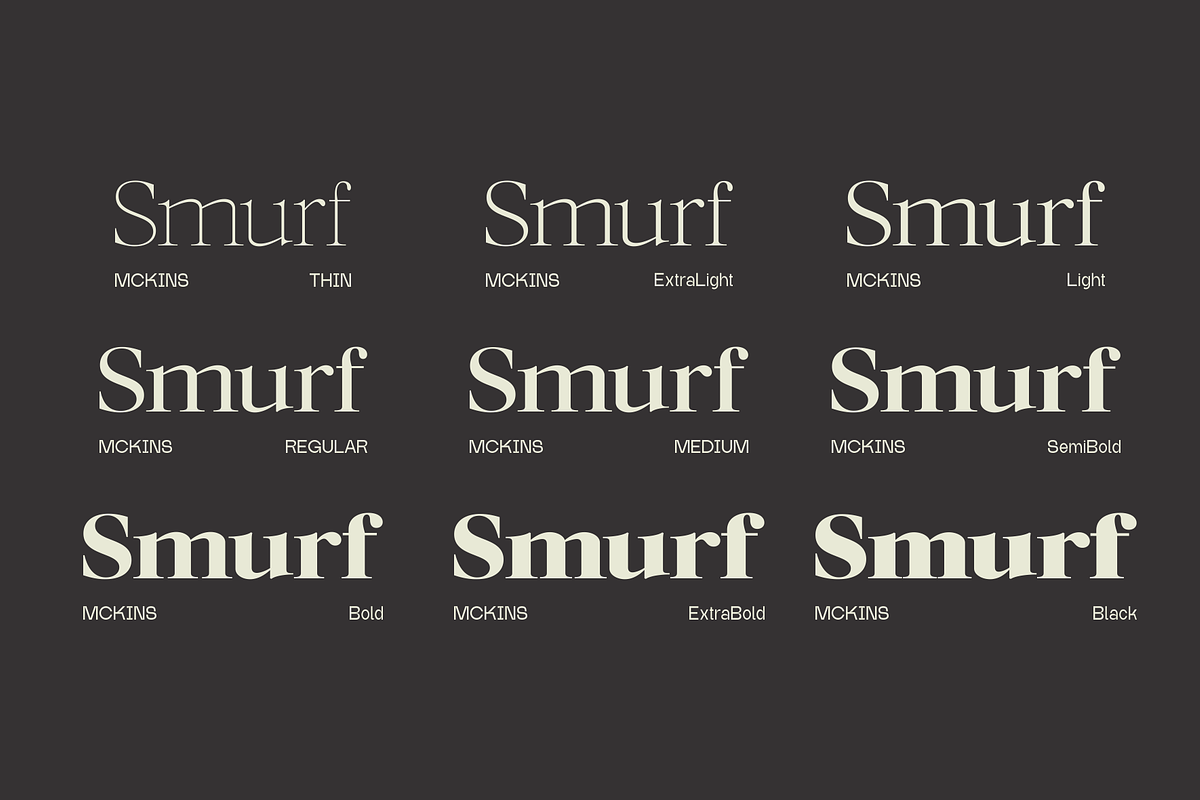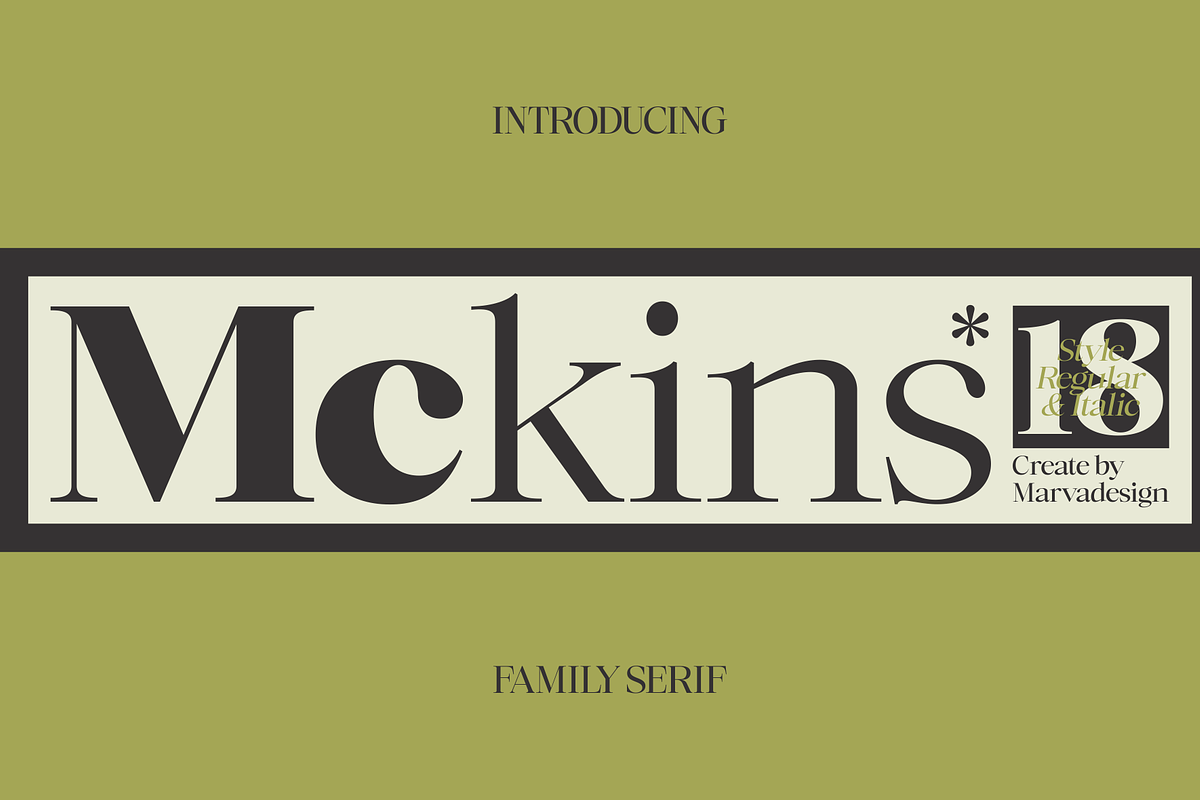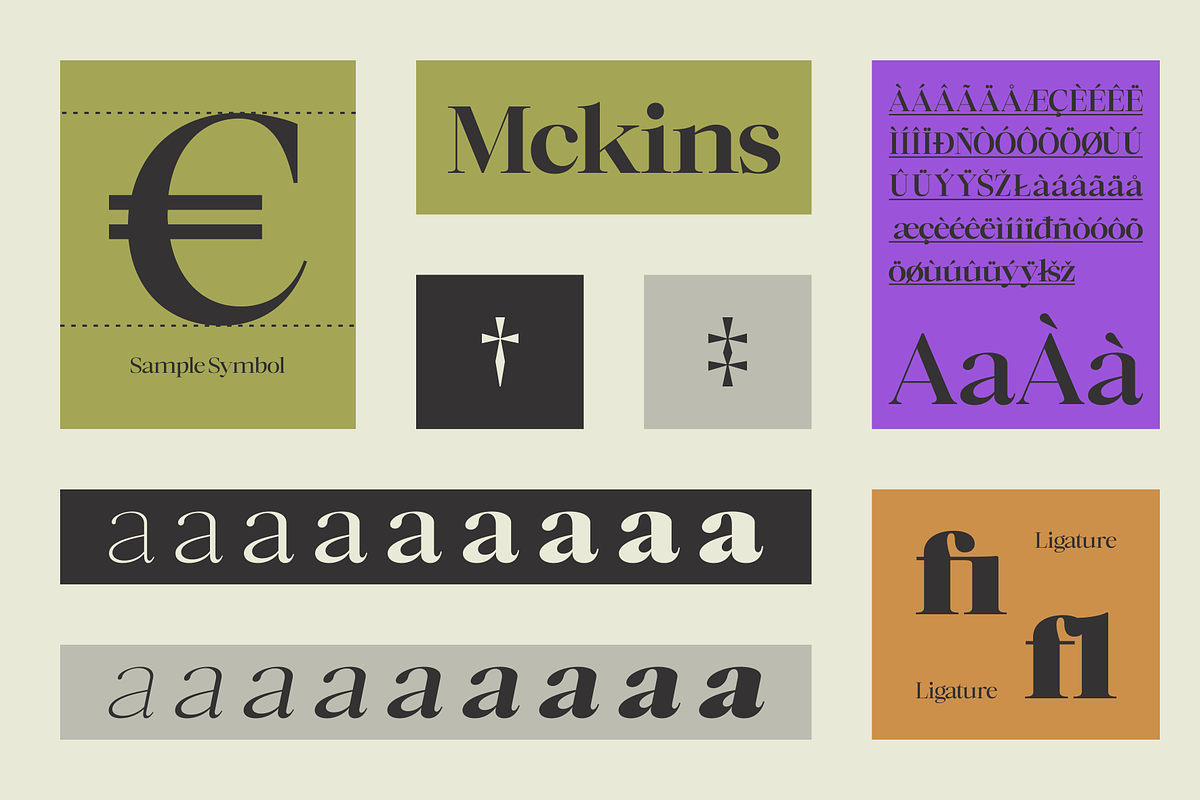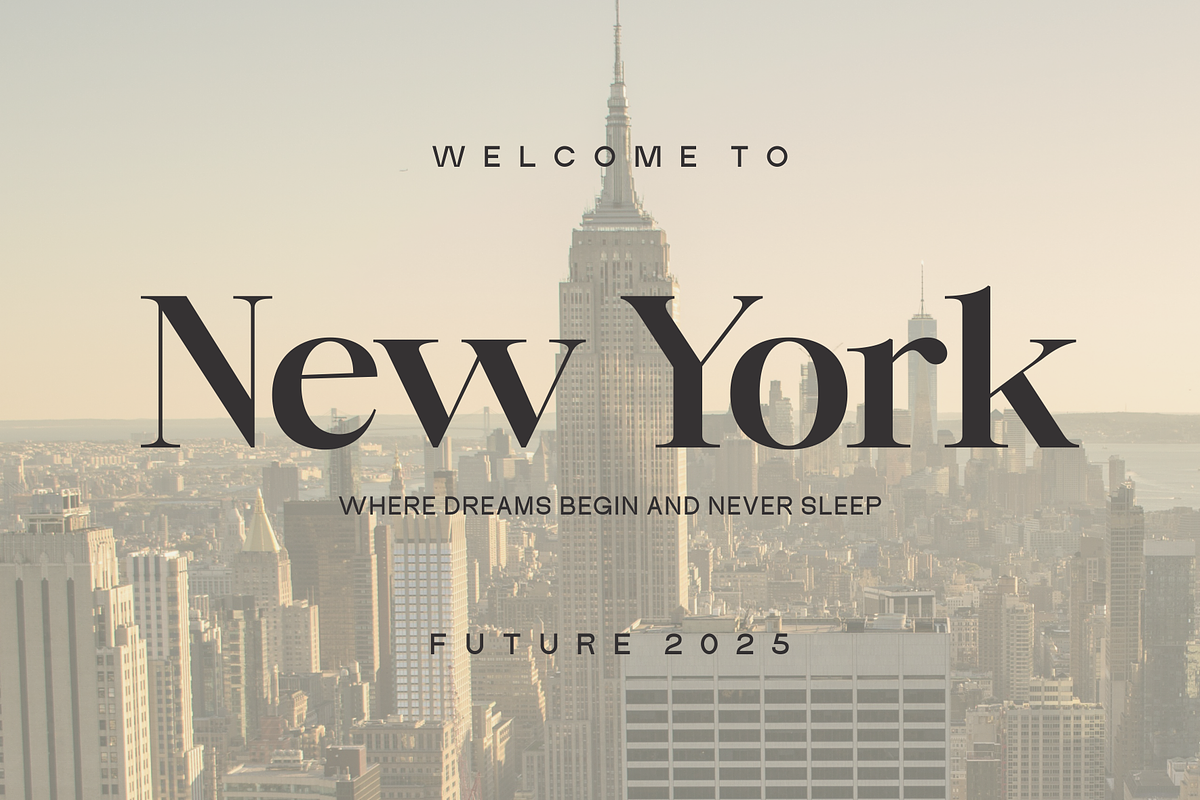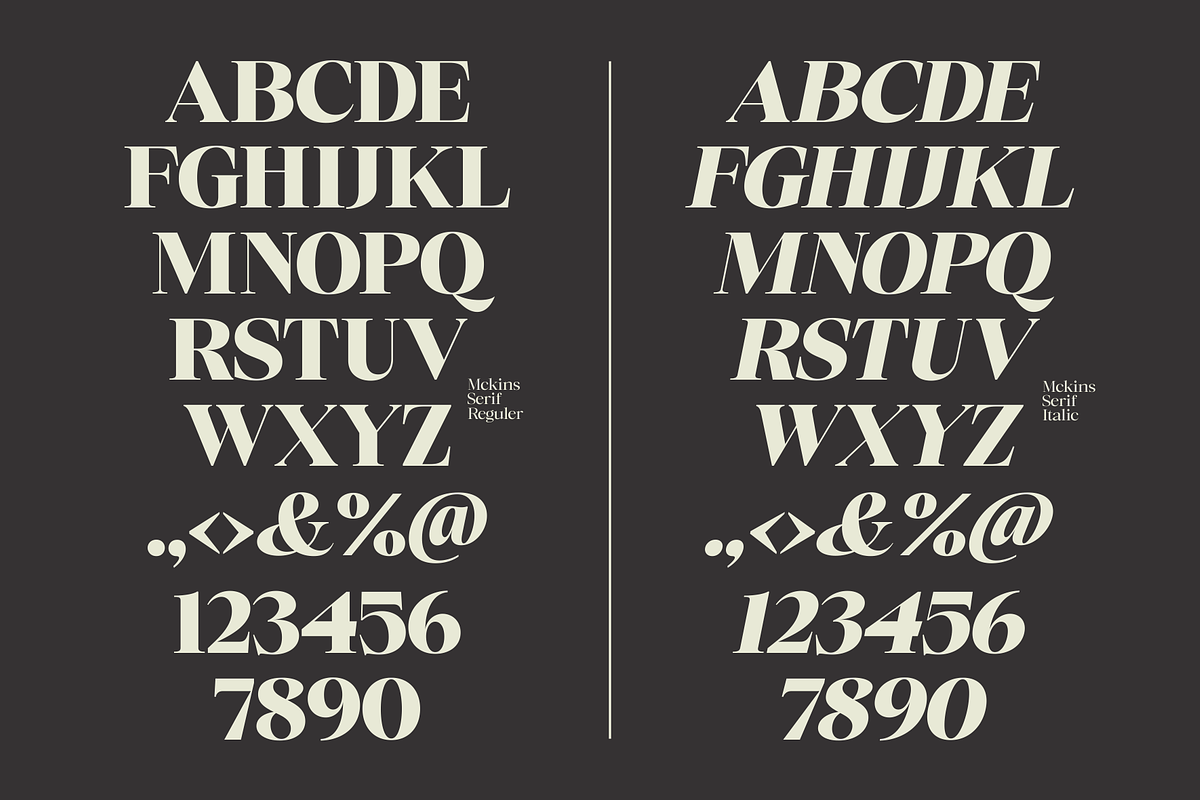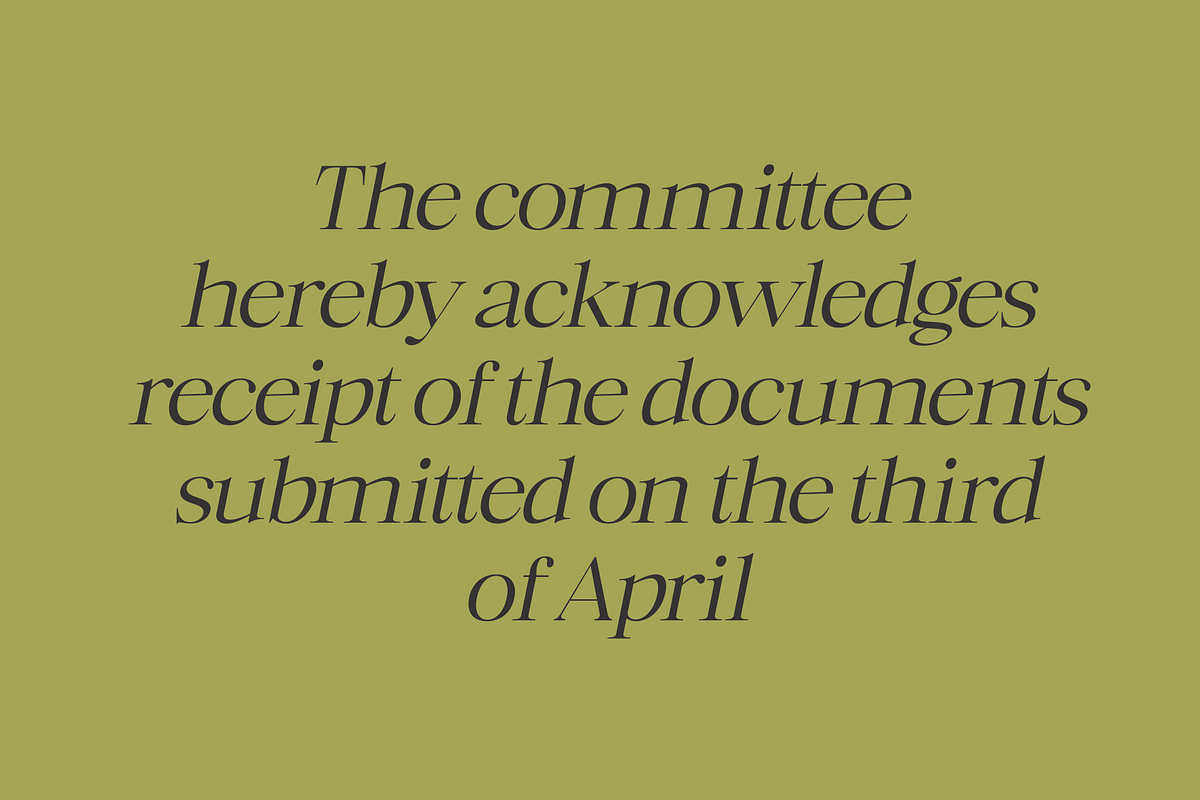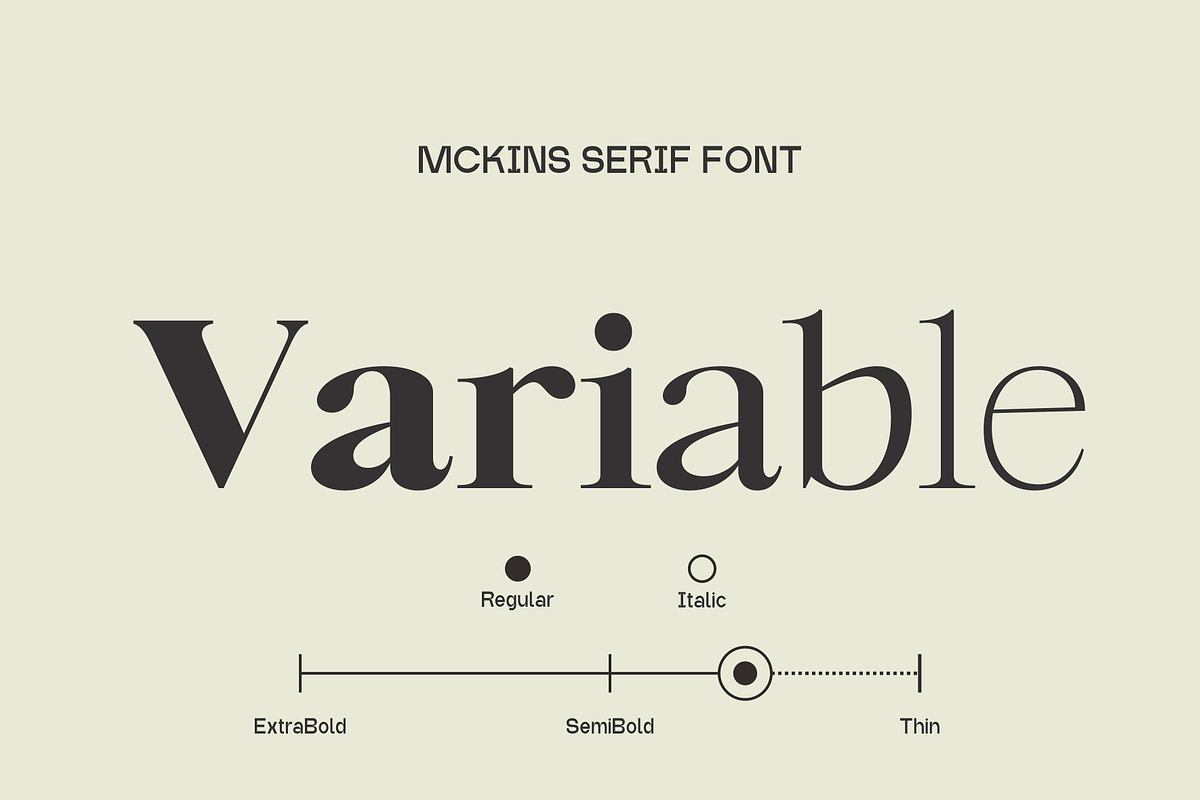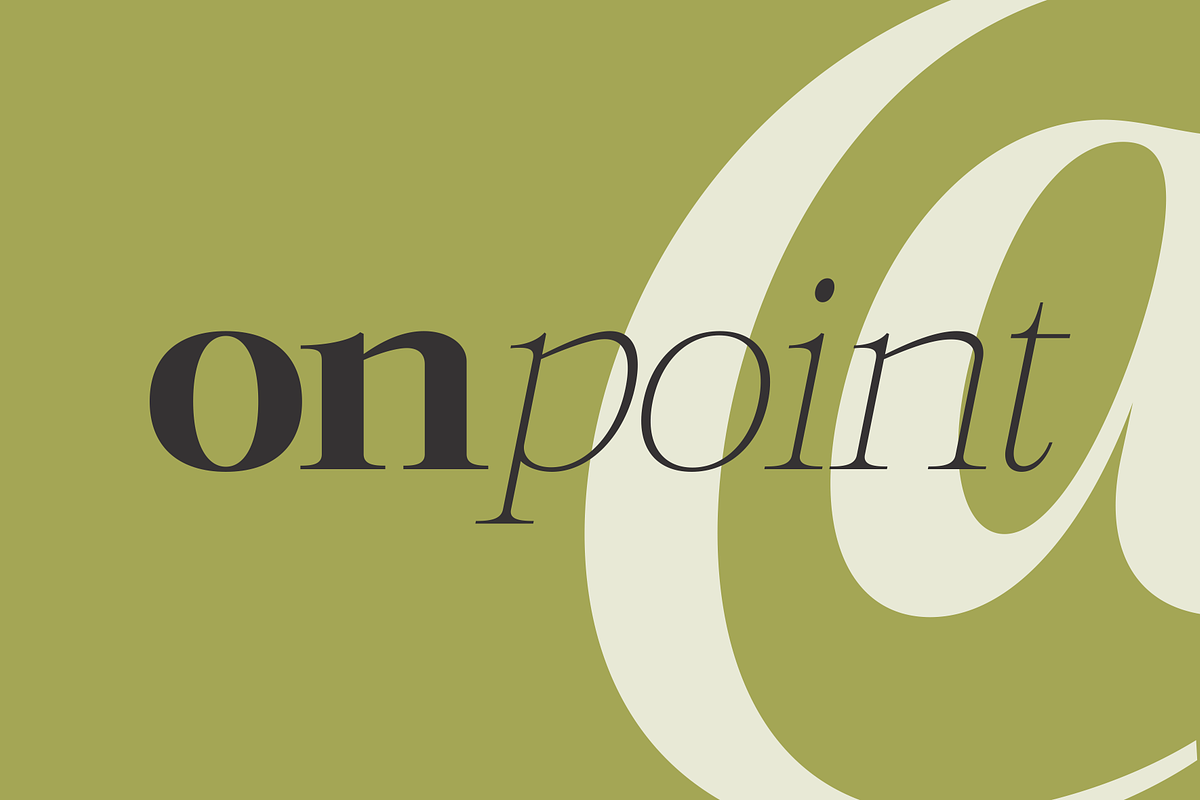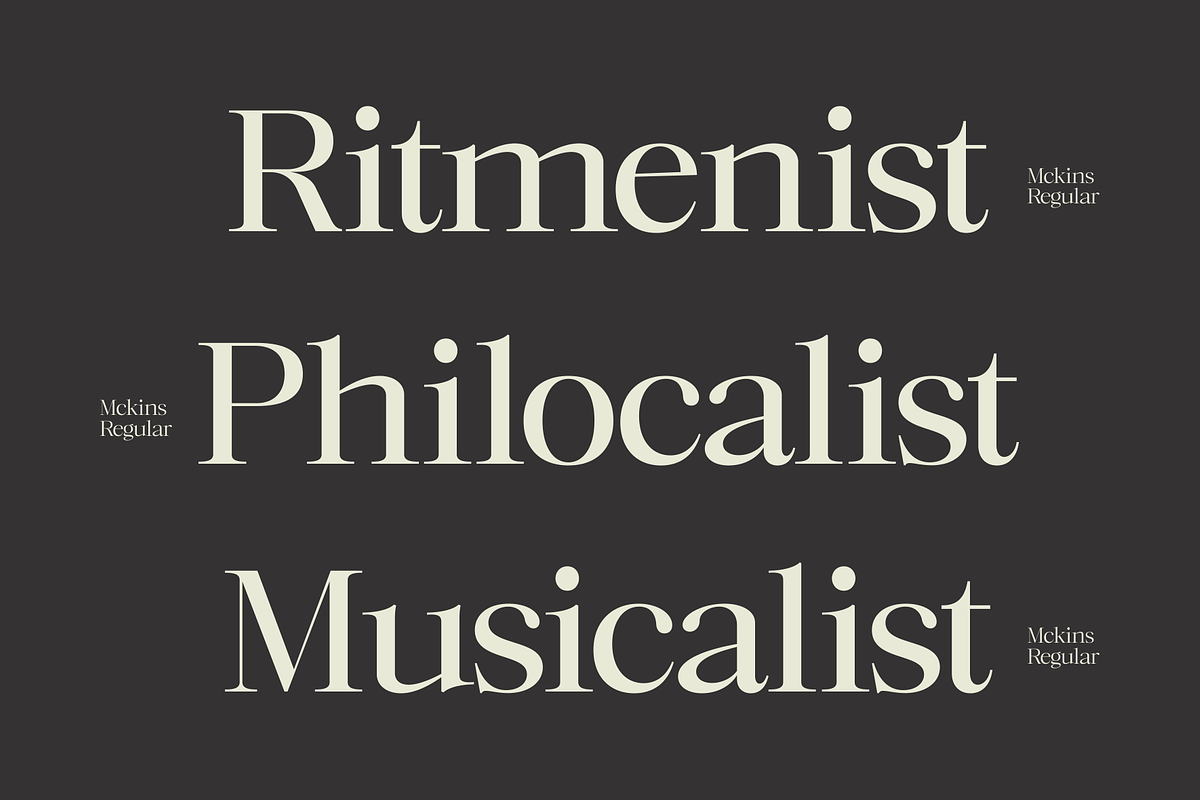
Mckins - Family Serif Font
Introducing New Family Serif Font Mckins is a refined and contemporary serif typeface designed by Marvadesign. Characterized by its high contrast strokes and elegant proportions, Mckins merges classic serif traditions with modern sensibilities. It features 18 styles, including both upright and italic versions, ranging from Thin to Black, allowing for versatile use across various design contexts. The font exhibits sharp terminals, pronounced vertical stress, and graceful curves, making it ideal for editorial layouts, branding, and high-end visual identities. Mckins maintains a strong presence in display settings while remaining highly readable in body text, exemplifying a perfect balance of sophistication and functionality.
The styles include
- Thin
- Thin Italic
- ExtraLight
- ExtraLight Italic
- Light
- Light Italic
- Regular Italic
- Medium
- Medium Italic
- SemiBold
- SemiBold Italic
- Bold
- Bold Italic
- Extra Bold
- Extra Bold Italic
- Black
- Black Italic
- Variable